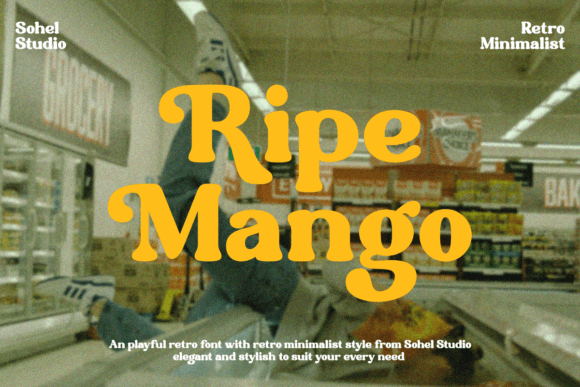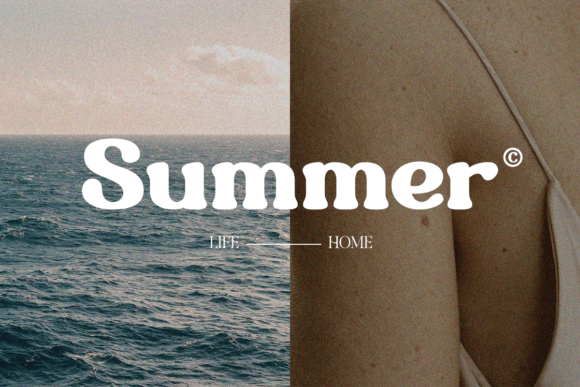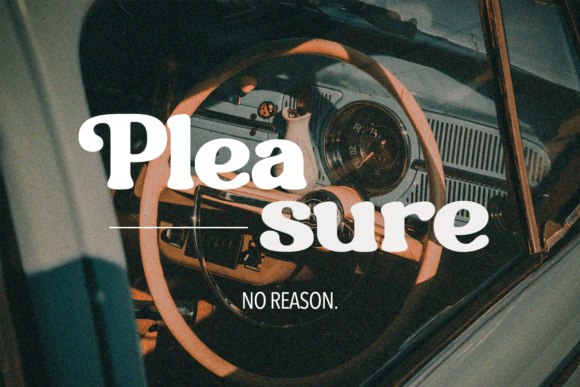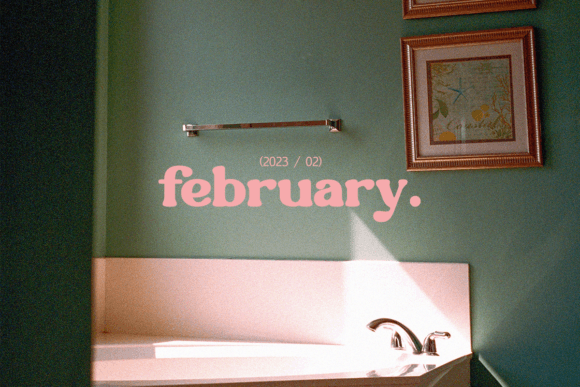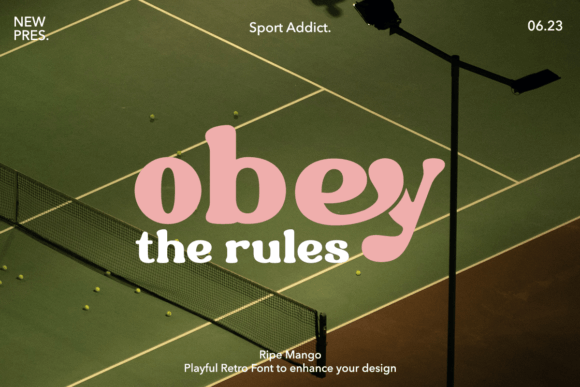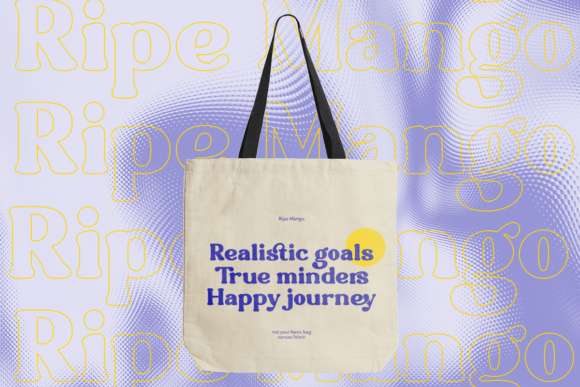
Introduction to Ripe Mango Font
As a designer, you’ve probably experienced that moment when the perfect font makes all the difference in a creative project. You’re brainstorming ideas, experimenting with colors, and searching for the perfect visual element to tie everything together. That’s when you stumble upon it – a font that instantly elevates your design and transports you to a different era. For many designers, this moment is often marked by the discovery of the Ripe Mango Font.
This retro display serif font exudes a classic charm and bold character, making it an ideal choice for designers seeking to evoke a sense of nostalgia in their work. With its elegant touch and carefully crafted letterforms, Ripe Mango Font is a valuable design resource that can add a unique twist to any project. Whether you’re working on a design project that requires a high-quality font or simply want to explore new creative possibilities, Ripe Mango Font is definitely worth checking out.
Key Features of Ripe Mango Font
- Unique, hand-drawn design perfect for creative projects, offering a high-quality aesthetic.
Honest Review: Ripe Mango Font
As a designer, I’m always on the lookout for high-quality design resources to enhance my creative projects. Recently, I stumbled upon the Ripe Mango Font, and I’m excited to share my honest review.
- ✨ Unique and vibrant design: The Ripe Mango Font has a beautiful, tropical vibe that’s perfect for projects that require a touch of warmth and energy.
- ✨ High-quality vector graphics: The font is well-designed, with smooth lines and crisp details that ensure it looks great at various sizes and resolutions.
- ⚠️ Limited font styles: While the Ripe Mango Font is a great starting point, it’s limited to a single style, which may not be suitable for projects that require multiple font variations.
Overall, I think the Ripe Mango Font is a great addition to any designer’s toolkit. While it has some limitations, its unique design and high-quality graphics make it a valuable resource for creative projects. With a little creativity, you can work around its limitations and create stunning designs with the Ripe Mango Font.
Ripe Mango Font
Tips for Getting the Most Out of Ripe Mango Font
Experiment with different font sizes, colors, and styles to create a unique design. Use the Ripe Mango Font in conjunction with other design elements, such as images and shapes, to add depth and visual interest to your creative project.
The Ripe Mango Font is ideal for use in branding, advertising, and packaging design. Its high-quality and unique design make it a great addition to any creative project. You can also use it for digital design projects, such as social media graphics and website design.